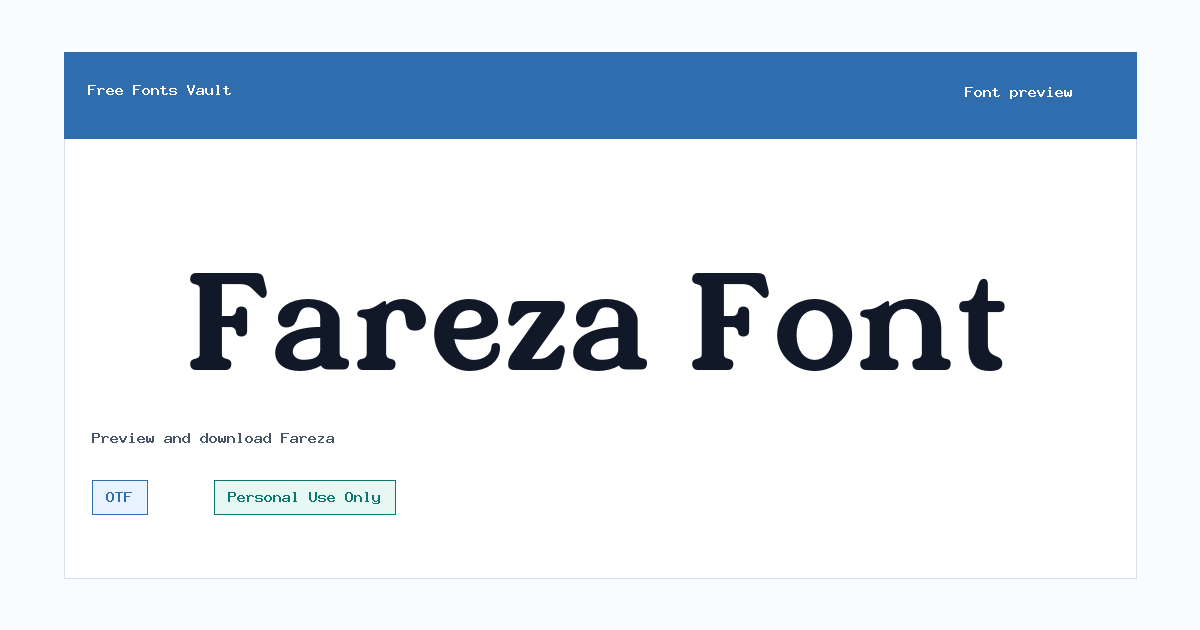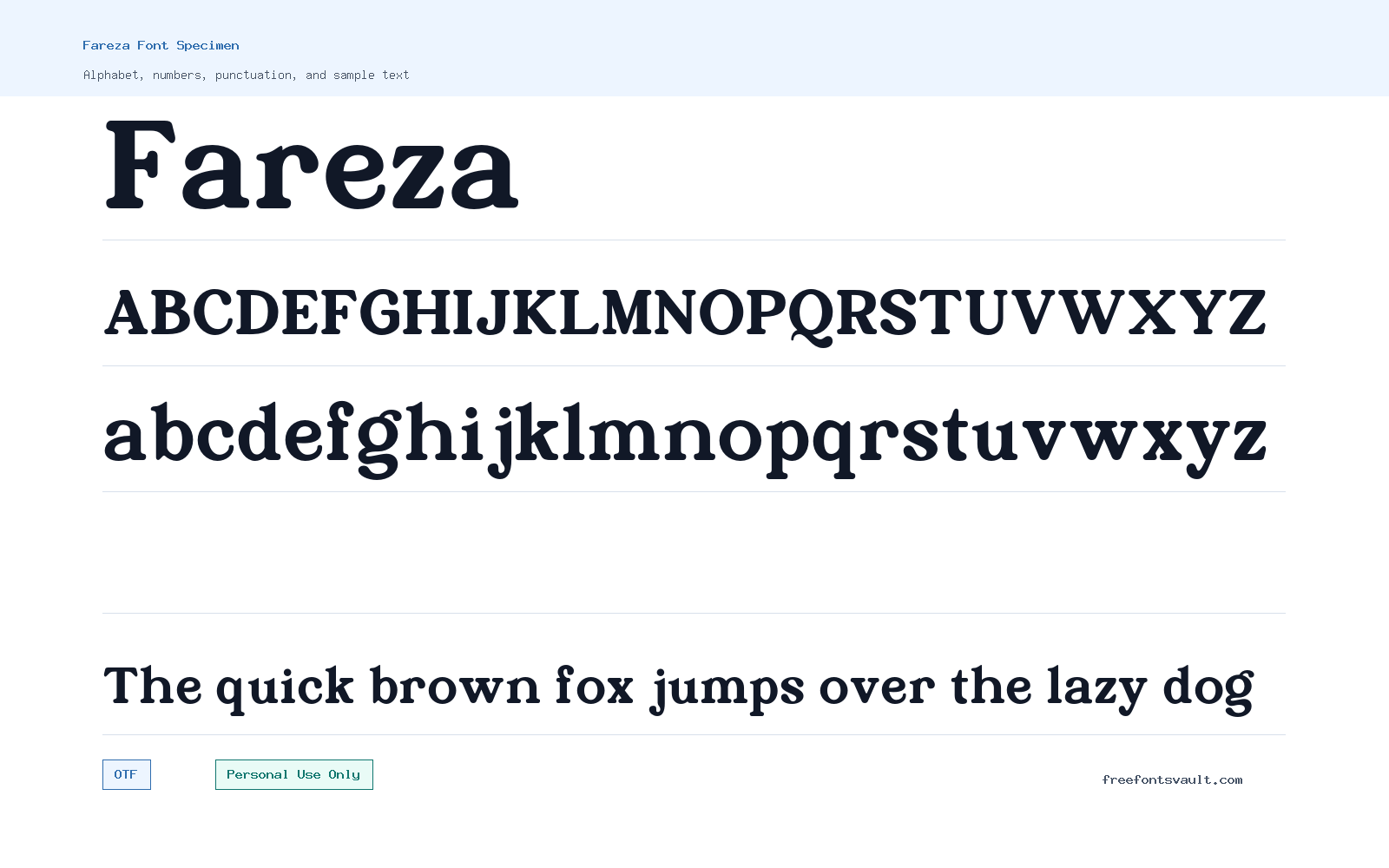
Fareza
Fareza Font
Fareza is a serif font with a clean display feel, suited to visitors who want a stylish type choice for personal projects, mockups, and short pieces of text. The download contains a regular OTF font file, so it is easy to test in common design apps before deciding whether it fits your layout.
About Fareza Font
Fareza works best when you give it room to show its shape. Use the preview box to test names, short headings, invitations, quote graphics, and logo-style drafts rather than long paragraphs. Since the available style is regular weight, it is most useful as a main display face or accent typeface. Try it at larger sizes first, then reduce the size slowly to see where the letter details remain clear.
For practical design work, keep the layout simple around Fareza. Pair it with a quiet sans serif for body copy, captions, menus, or supporting information. This helps the serif style stand out without making the page feel crowded. If you are preparing social graphics, posters, personal branding samples, or cover designs, test both uppercase and lowercase words, check spacing between tricky letter pairs, and preview the font against light and dark backgrounds before exporting final artwork.
• Serif styling that is better suited to display text, titles, and short creative wording than dense reading copy.
• Personal invitations, quote cards, mood boards, and decorative headings.
• Logo drafts, portfolio mockups, social posts, and title treatments where a serif accent is useful.
What is Fareza best used for?
It is best tested for short display uses such as headings, invitations, quote graphics, personal logo drafts, and social media designs.
Can I use Fareza for body text?
It is safer to use Fareza for short text and headings. For paragraphs, pair it with a clean, readable sans serif or text serif.